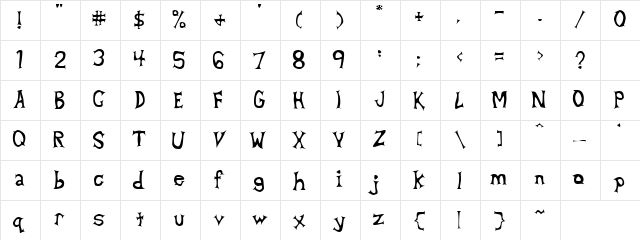
Corner Palace Regular
Design Context for Corner Palace Typeface
Corner Palace is a composed and adaptable typeface that performs quietly and consistently across a wide range of design contexts.